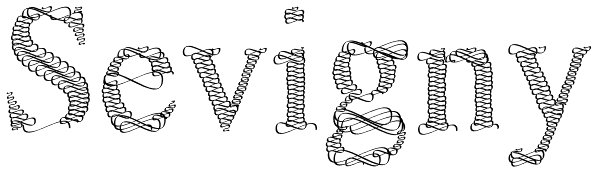
Sevigny
Sevigny is for the poetic eye. It sings to readers - luring and promising - sweet like candy. Even though it is different, you feel that you've already seen it. Sevigny seduces you to look. Look twice. Déjà vu Ease the lure. Allow your eyes to...